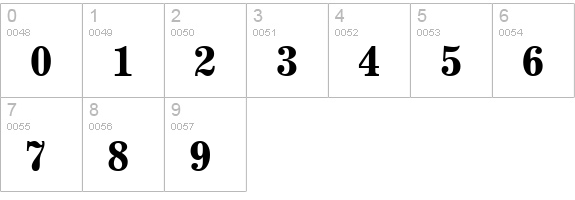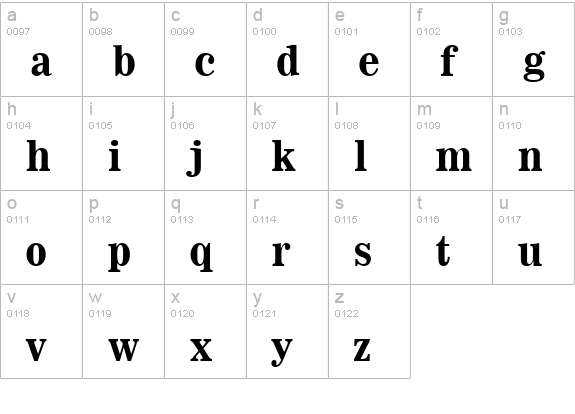
Sachem Bold Font Details
Sachem Bold is a strong, high-contrast variant in the Sachem typeface family \xE2\x80\x94 well suited to headlines, attention-grabbing titles, and strong calls-to-action.
Introducing Sachem Bold, a powerful and striking typeface that exudes confidence, elegance, and versatility. With its bold and commanding presence, this font is perfect for making a bold statement in your designs. Sachem Bold is designed with meticulous attention to detail, featuring strong and clean lines that ensure readability in any size or format. Its bold weight adds a sense of authority and impact, making it an ideal choice for headlines, logos, posters, and branding projects that demand attention. This font's unique combination of boldness and sophistication allows it to effortlessly capture attention while maintaining a modern and refined aesthetic. Whether you're designing for print or digital platforms, Sachem Bold will elevate your projects to new heights. One of the best features of Sachem Bold is that it is freely available to download at FontsMarket.com. This means that you can access this exceptional font without any cost, making it an invaluable resource for both personal and commercial projects. With its wide range of characters, including uppercase and lowercase letters, numbers, punctuation marks, and special glyphs, Sachem Bold offers endless possibilities for creative expression. Its versatility allows it to seamlessly adapt to various design themes, from minimalist to bold and daring. Whether you're a professional designer or a creative enthusiast, Sachem Bold is a must-have addition to your font library. Its bold and commanding presence, coupled with its easy accessibility, ensures that your designs will stand out from the crowd and make a lasting impression. Download Sachem Bold for free today at FontsMarket.com and unleash your creativity with this exceptional font that is sure to make a bold statement in all your design projects.